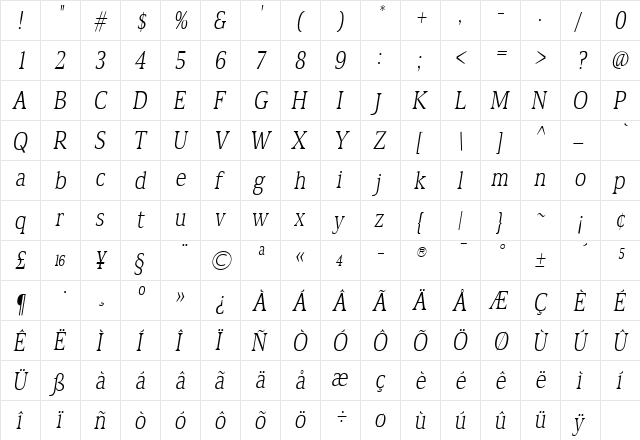
TFArdent Italic
Design Context for TFArdent Typeface
TFArdent takes a measured approach to typography — its balanced proportions and neutral character make it a reliable workhorse for both digital and print work. The slanted form adds forward momentum and visual energy.
Pro Tip: Try TFArdent for annotation and caption copy alongside an upright companion — the contrast in angle creates a dynamic but ordered typographic system.